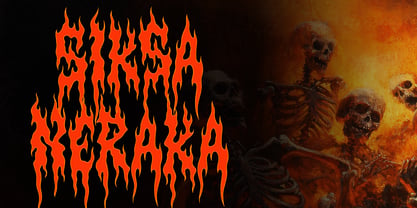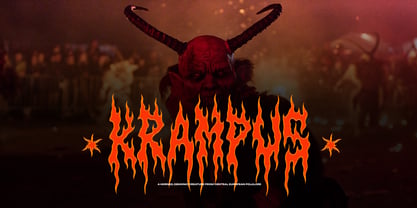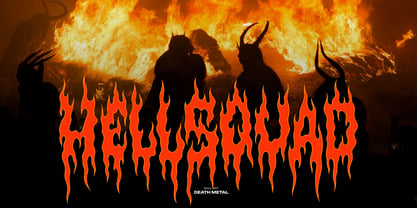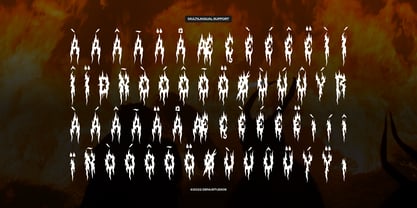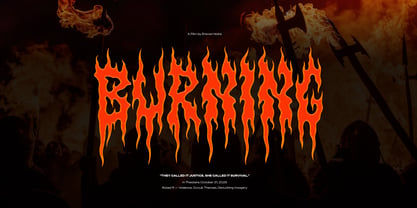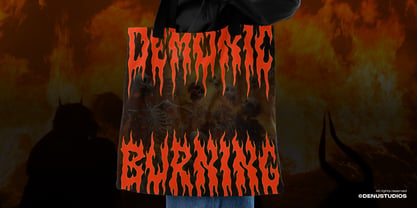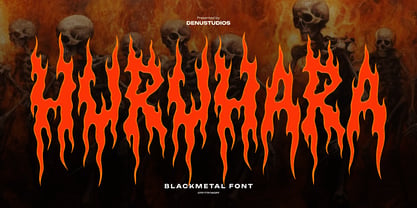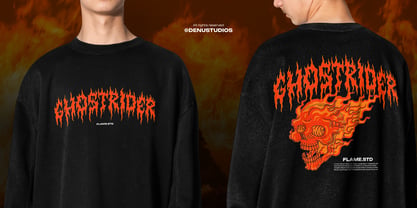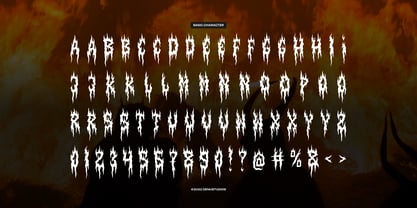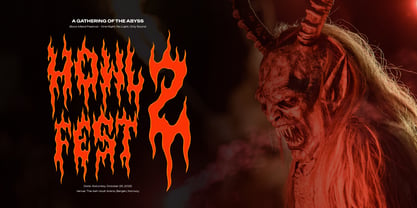
Huruhara
Die Schriftfamilie Huruhara wurde von Dede Nugraha entworfen und von Denustudio veröffentlicht. Huruhara enthält 1 Stile. Mehr über diese Familie
Huruhara | Black Metal Font, from Denustudios, suitable for any projects such as: logos, branding projects, homeware designs, product packaging, mugs, quotes, posters, shopping bags, t-shirts, book covers, name card, invitation cards, greeting cards, label, photography, watermark, special events, and all your other lovely projects that need Black Metal Font a taste.
• Alternate and Ligature